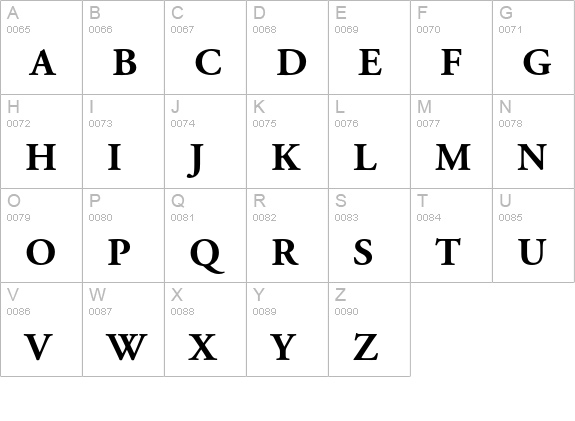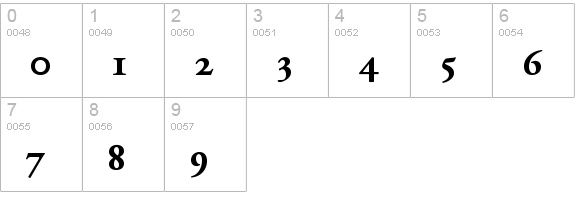
Adobe Garamond Bold Oldstyle Figures Font Details
Adobe Garamond Bold Oldstyle Figures is a strong, high-contrast variant in the Adobe typeface family \xE2\x80\x94 well suited to headlines, attention-grabbing titles, and strong calls-to-action.
Adobe Garamond Bold Oldstyle Figures is a timeless and elegant typeface that exudes sophistication and refinement. With its bold weight and gracefully designed oldstyle figures, this font is perfect for adding a touch of classic beauty to any project. The strong presence of the bold strokes combined with the delicate details of the oldstyle figures creates a harmonious balance that captures attention and conveys a sense of tradition and authority. This font is a versatile choice for a wide range of design applications, from editorial layouts to branding and packaging. Its timeless appeal makes it suitable for both print and digital designs, ensuring that your message is conveyed with clarity and style. Whether used for headlines, body text, or accents, Adobe Garamond Bold Oldstyle Figures brings a touch of sophistication to any project. Best of all, this font is available for free download at FontsMarket.com. Simply visit the website and add this elegant typeface to your collection with just a few clicks. Embrace the classic beauty and versatility of Adobe Garamond Bold Oldstyle Figures in your designs today.